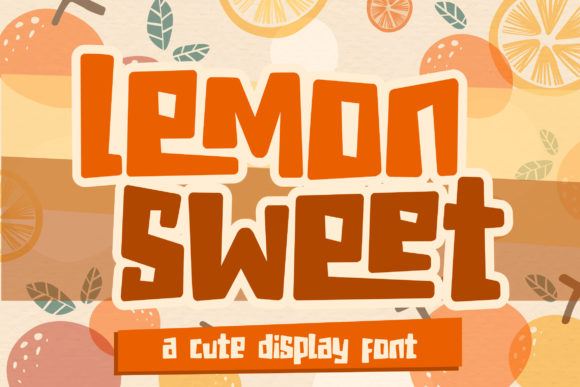
Get ready to unleash your creativity with the Lemon Sweet Font, a captivating display font that will transform your designs into masterpieces. Its playful and substantial characters, skillfully crafted with a blend of smooth curves and sharp edges, will make your creations pop.
Lemon Sweet is more than just a font; it's your gateway to a realm of boundless imagination. Dive into a world of bold statements, where your designs dance to the rhythm of this enchanting font. Whether you're creating eye-catching music posters, designing vibrant party invitations, or crafting whimsical flyers, Lemon Sweet is your trusty companion, amplifying your ideas and leaving a lasting impression.
Visualize your words taking on a life of their own, bursting with personality and charm. Lemon Sweet's unique combination of smooth lines and angular shapes creates a mesmerizing contrast, adding depth and dimension to your designs. Its chunky, quirky characters exude character, inviting your audience to engage with your message in a way they've never experienced before.
With Lemon Sweet, you'll find yourself effortlessly creating designs that resonate with your audience, capturing their attention and evoking emotions that leave a lasting impact. It's the perfect font to inject a dose of fun, joy, and unforgettable charm into your projects.
So, embrace the vibrancy of Lemon Sweet and embark on a creative journey where imagination knows no bounds. Elevate your designs to new heights, create memories that last a lifetime, and leave your audience mesmerized with every word you share.